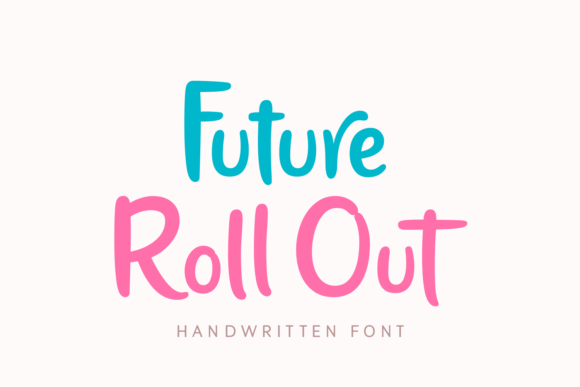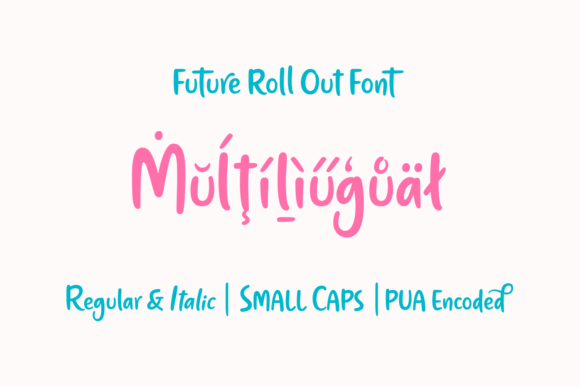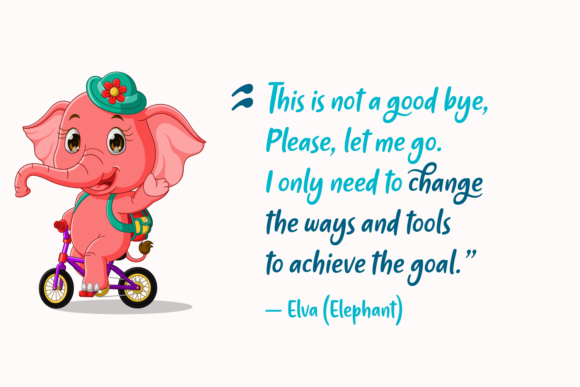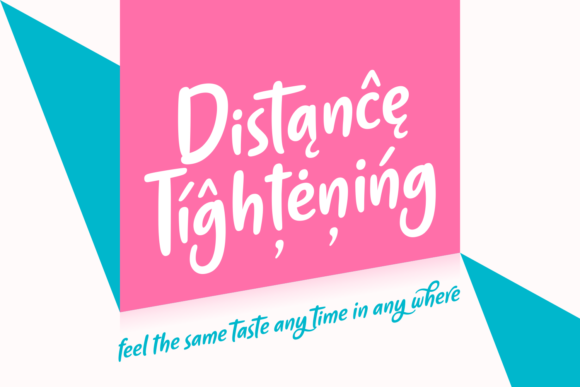
Future Roll out Font
About Future Roll out Font
Future Roll Out is a cute and casual handwritten font with an incredibly friendly feel. Whether you’re looking for fonts for Instagram or calligraphy scripts for DIY projects, This font will turn any creative idea into a true piece of art!